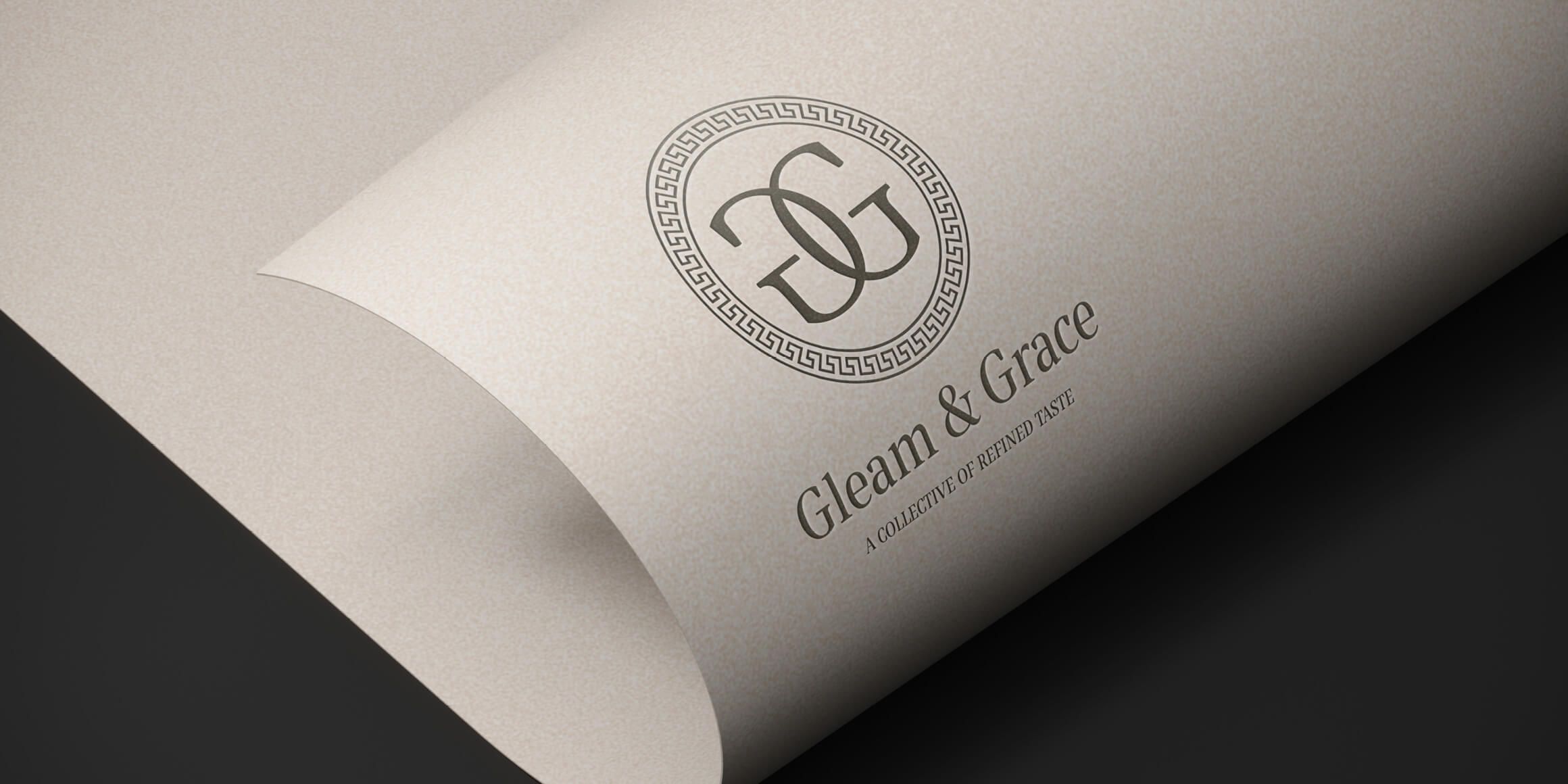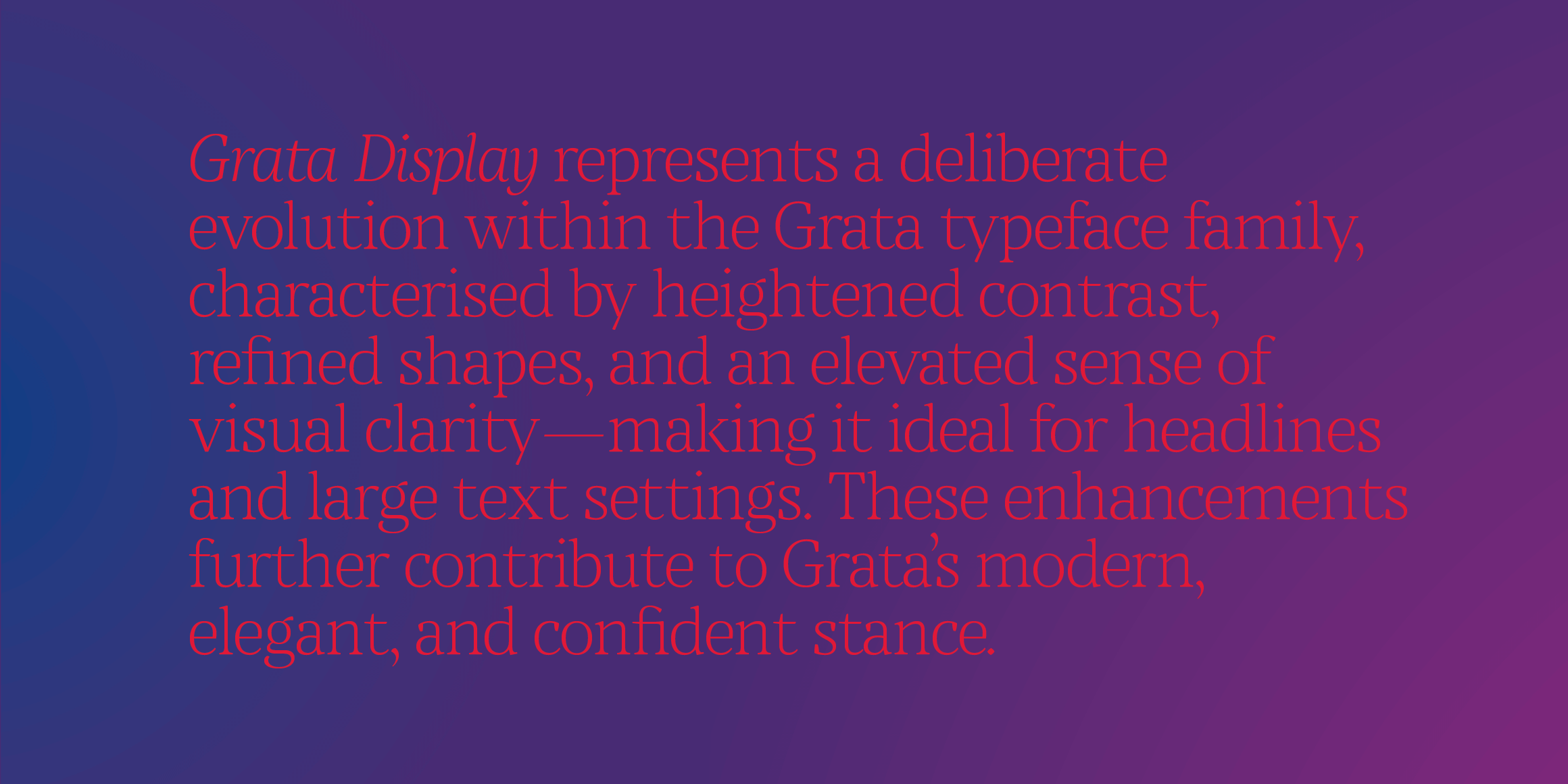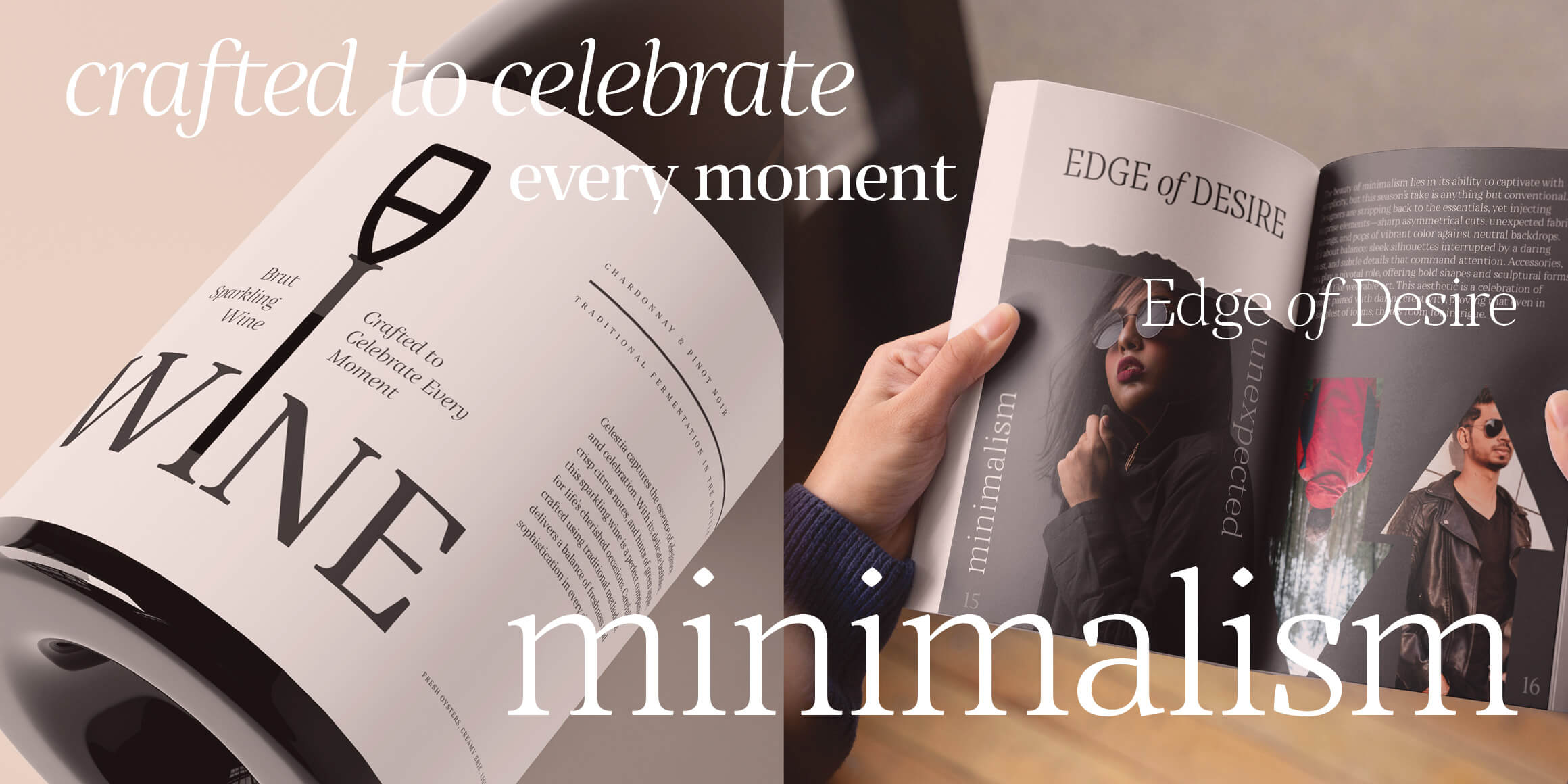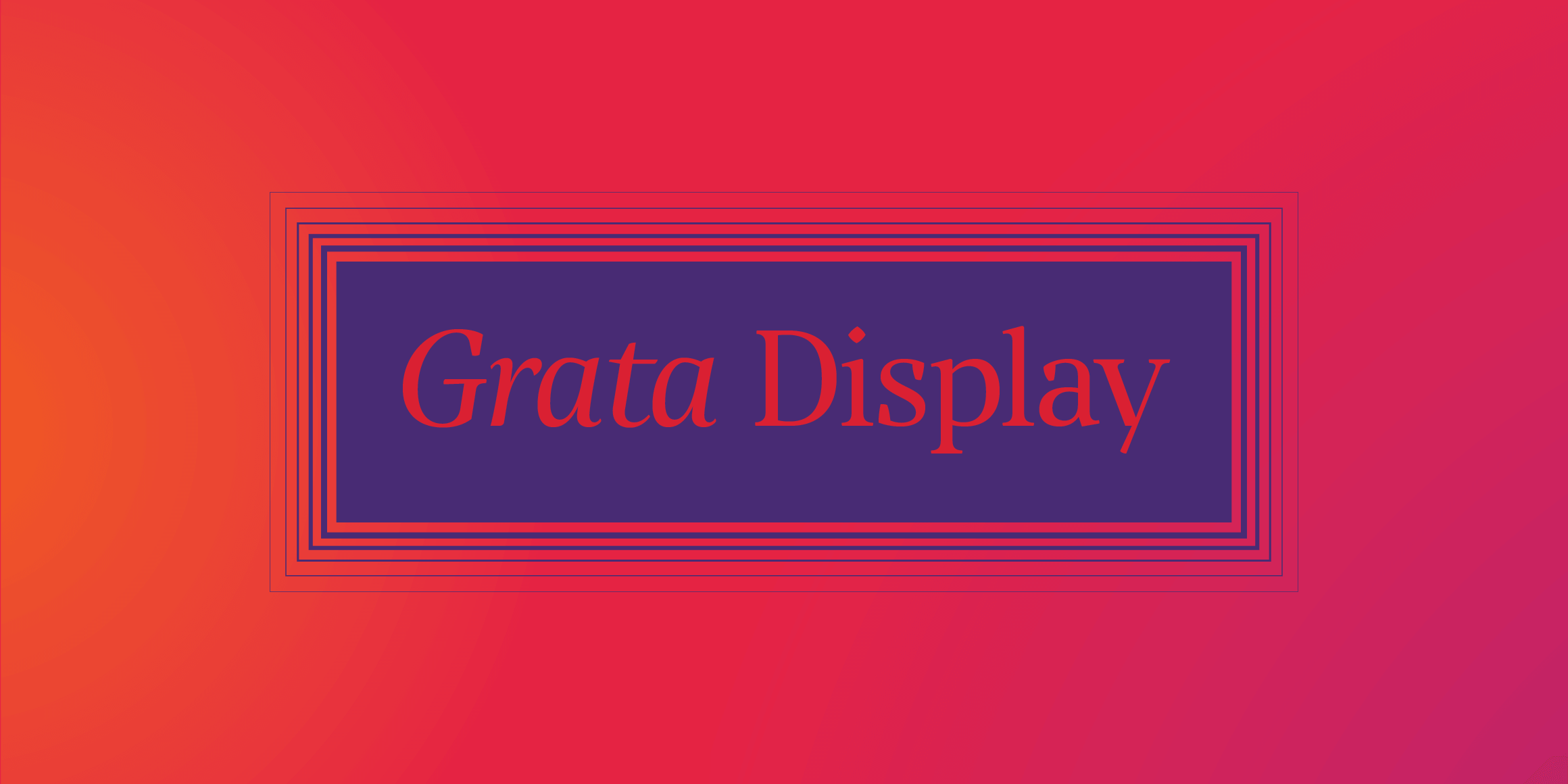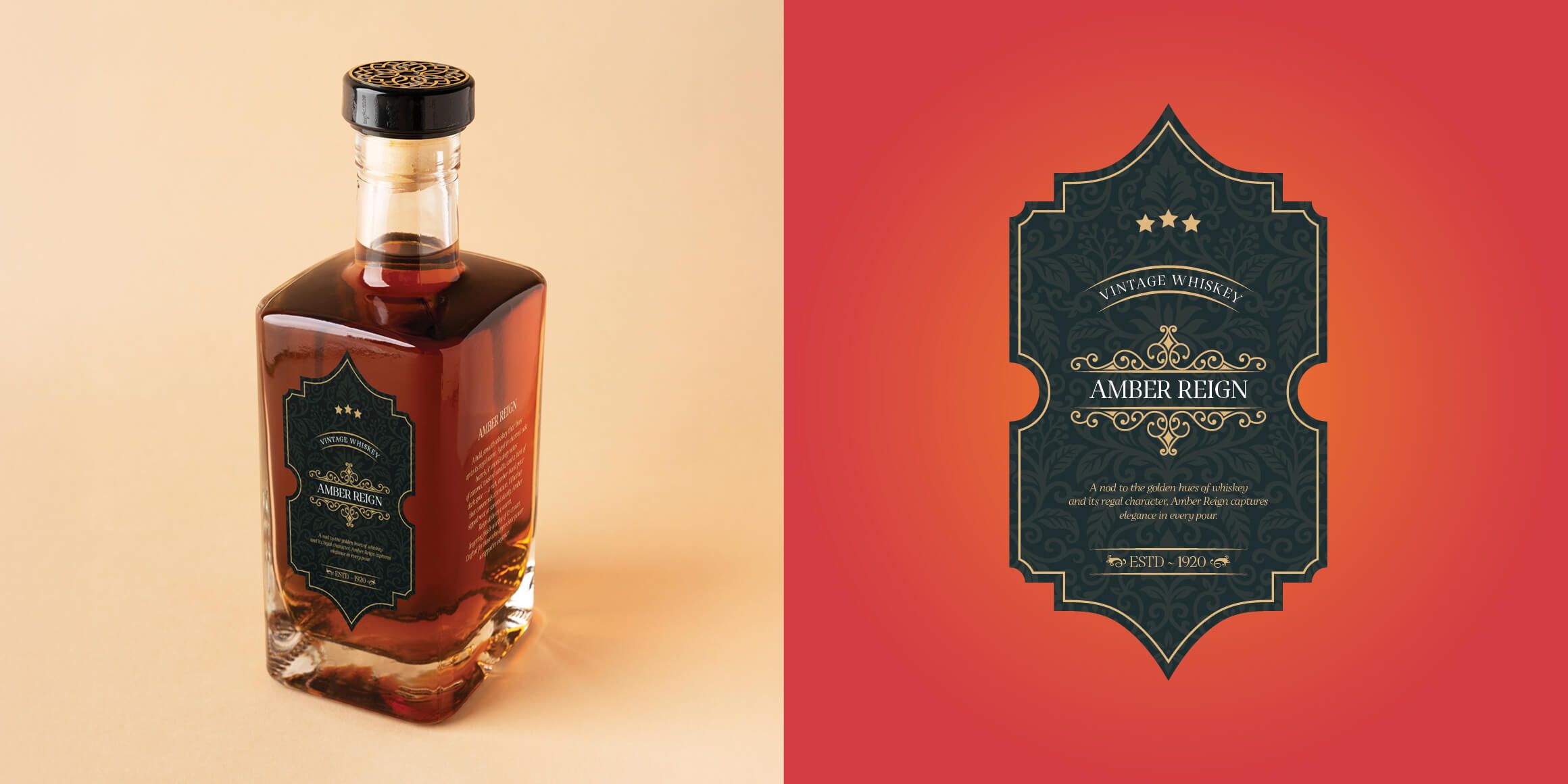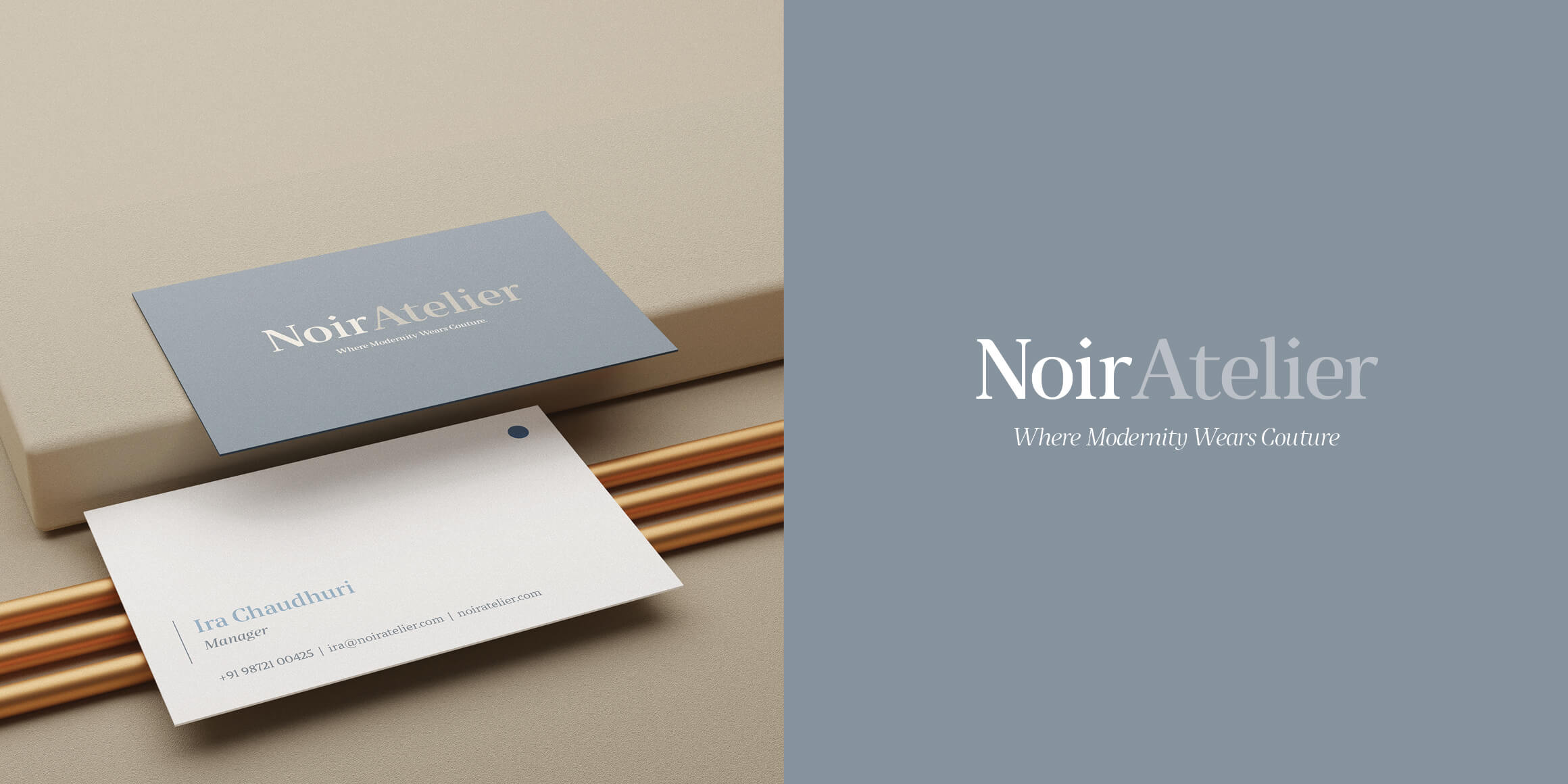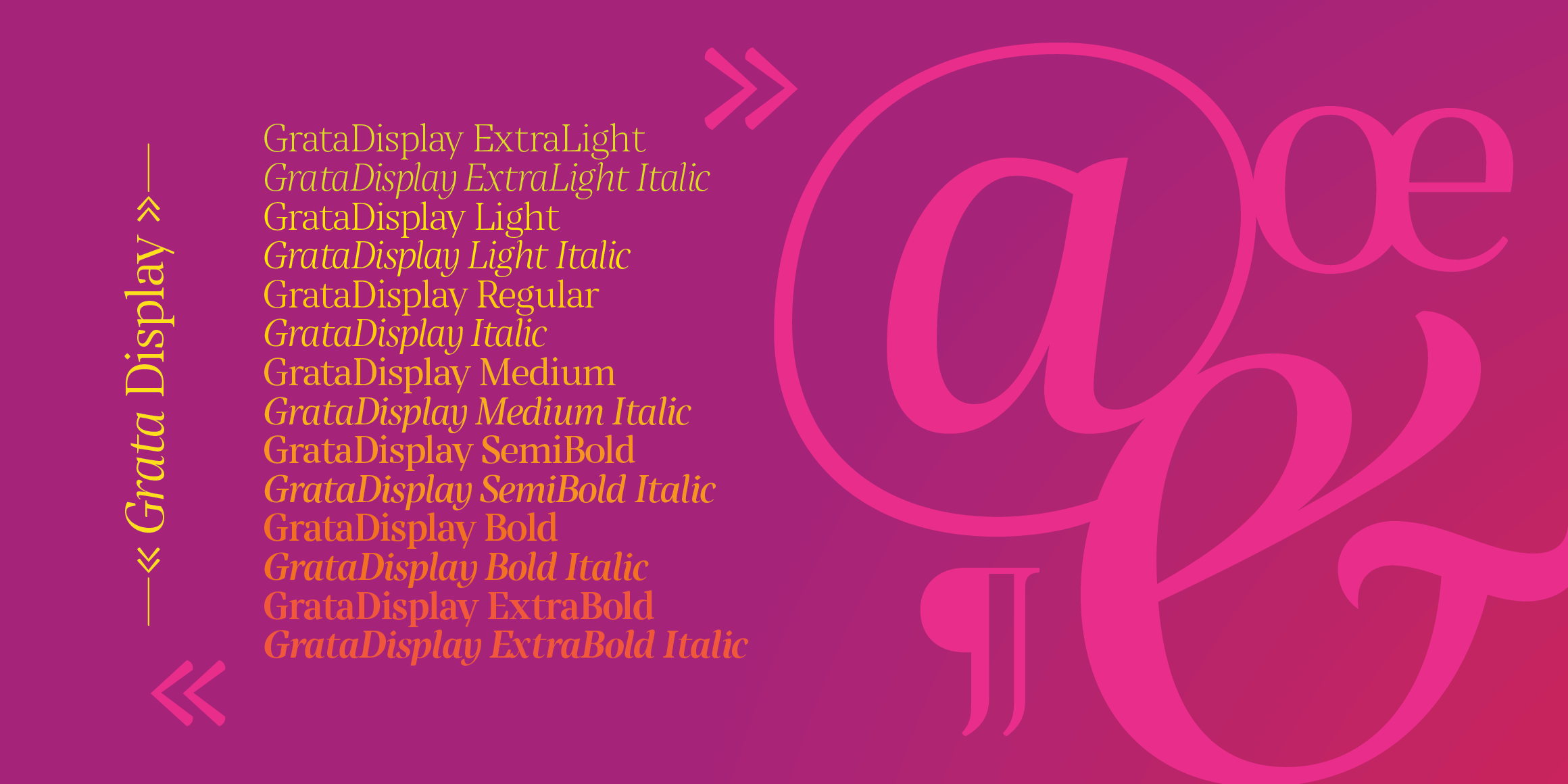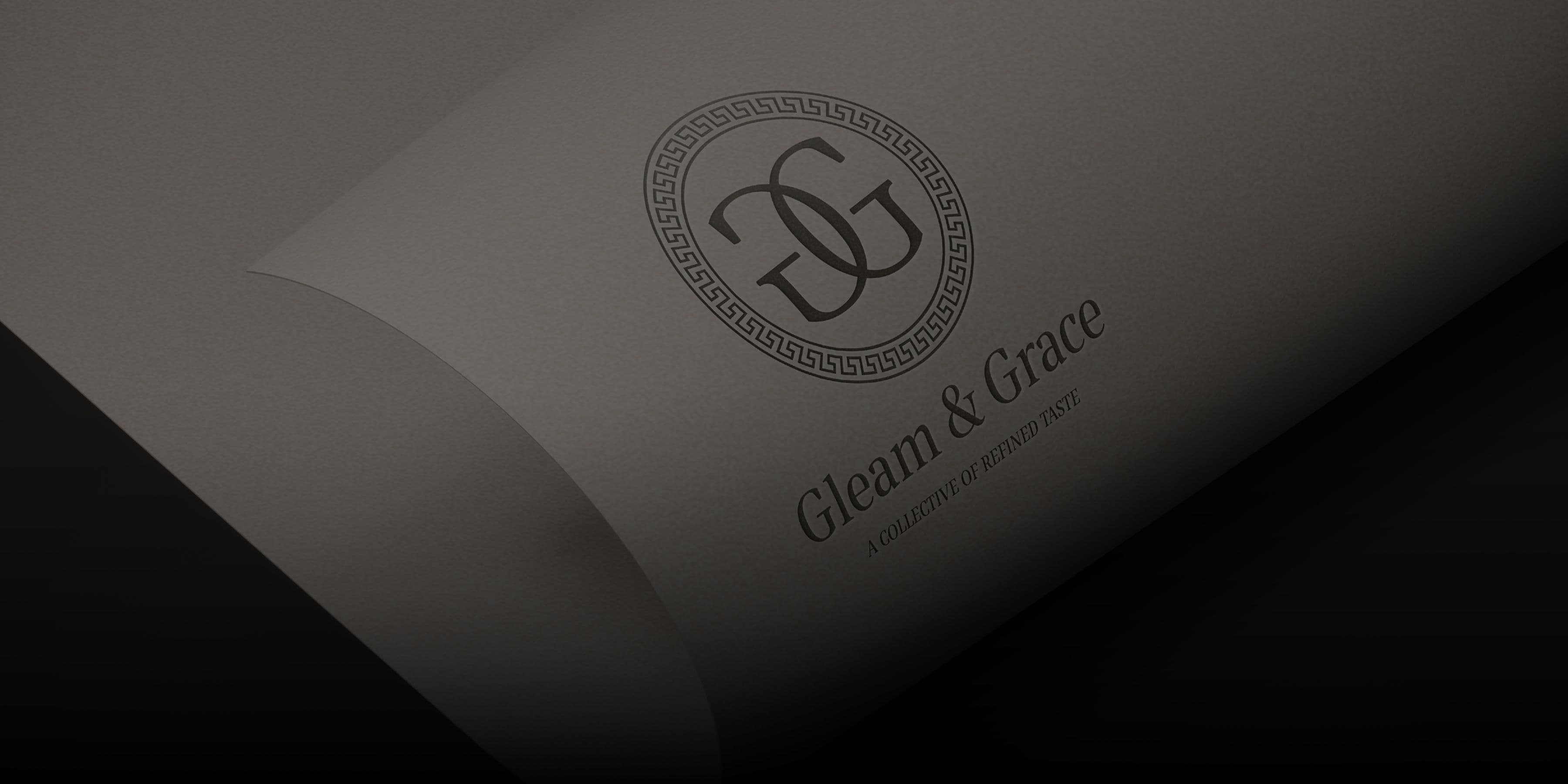
Grata Display
Grata Display represents a deliberate evolution within the Grata typeface family, characterised by heightened contrast and refined shapes, making it ideal for headlines and large text settings. These enhancements further contributes to Grata's modern and elegant stance.